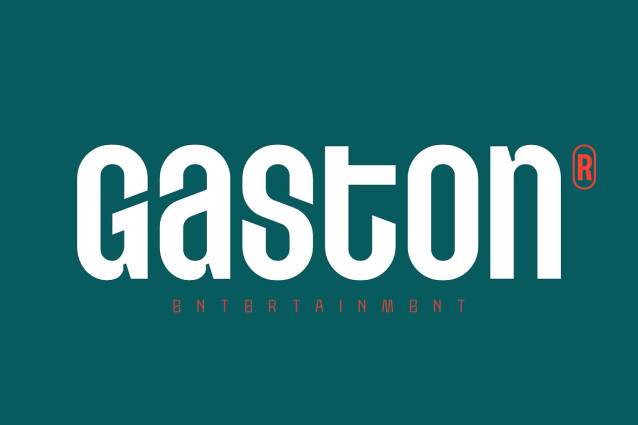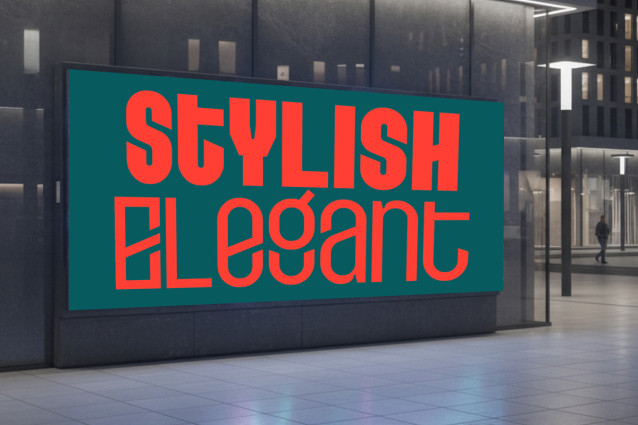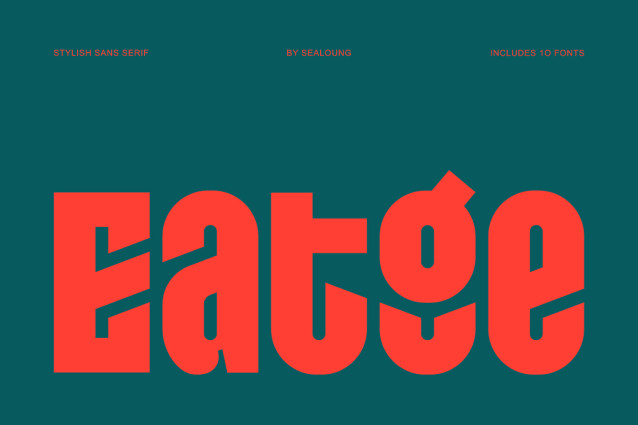
Etgea Font
Etgea Font is a stylish sans serif typeface family with a refined, clean, and versatile aesthetic. It features weights ranging from Thin to Bold, along with matching Italic styles, offering complete flexibility for any creative or professional project.